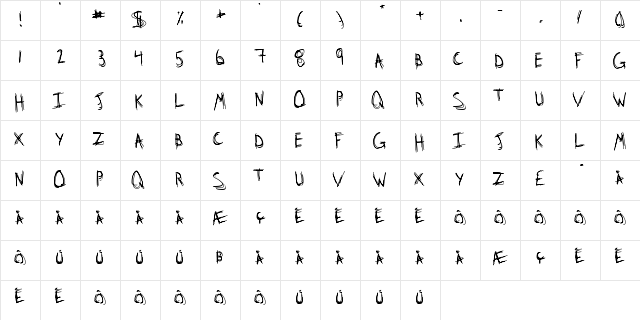
Stridslysten Medium
Design Context for Stridslysten Typeface
Stridslysten is a composed and adaptable typeface that performs quietly and consistently across a wide range of design contexts.